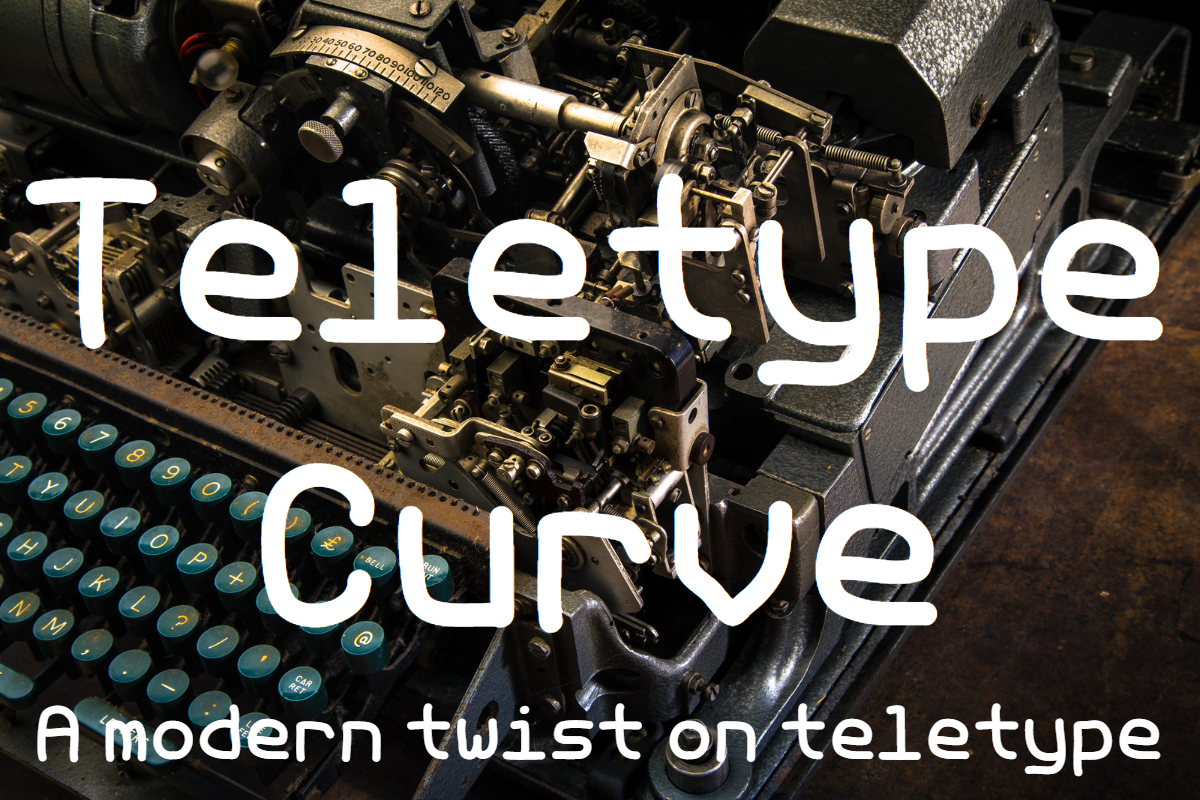
Please note, to use this font for commercial purposes, you must purchase the full version. Teletype Curve is a modern and unique display font that combines retro typewriter-inspired elements with a sleek, curved design. Perfect for creating bold headlines, posters, logos, and creative branding materials, this font offers a distinctive, tech-savvy vibe. Whether you're working on a vintage-inspired project or a contemporary design, Teletype Curve adds personality and style to your work. Test it out and enjoy free download access for personal use. Experience the innovative design of Teletype Curve Font Free Download before purchasing the commercial license. Bring a creative, futuristic touch to your designs with Teletype Curve.